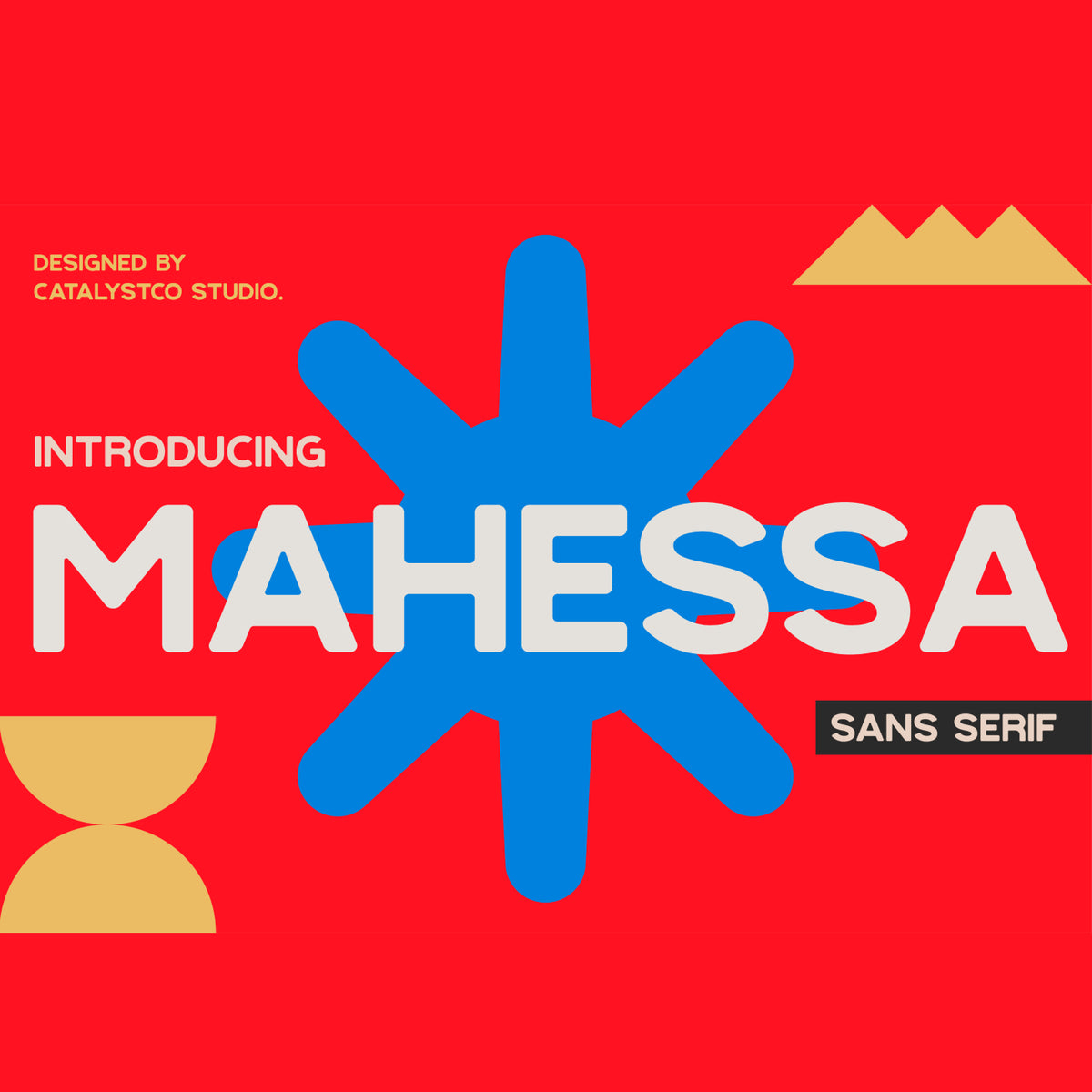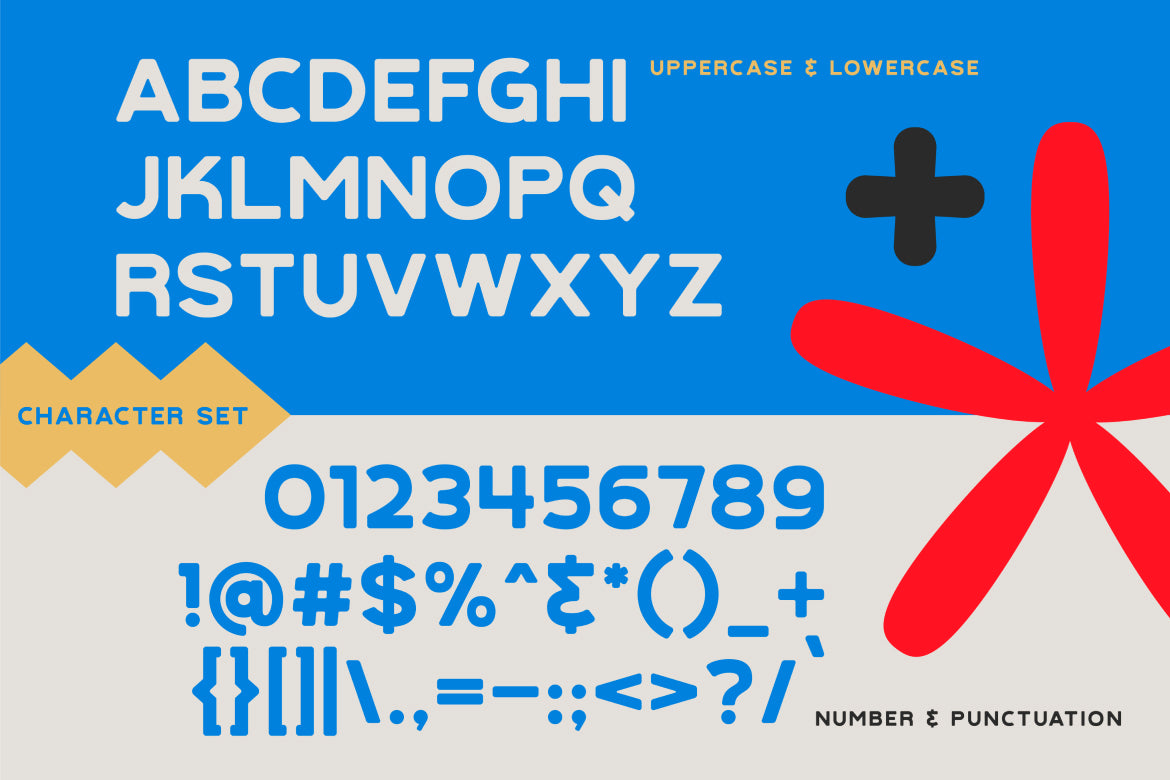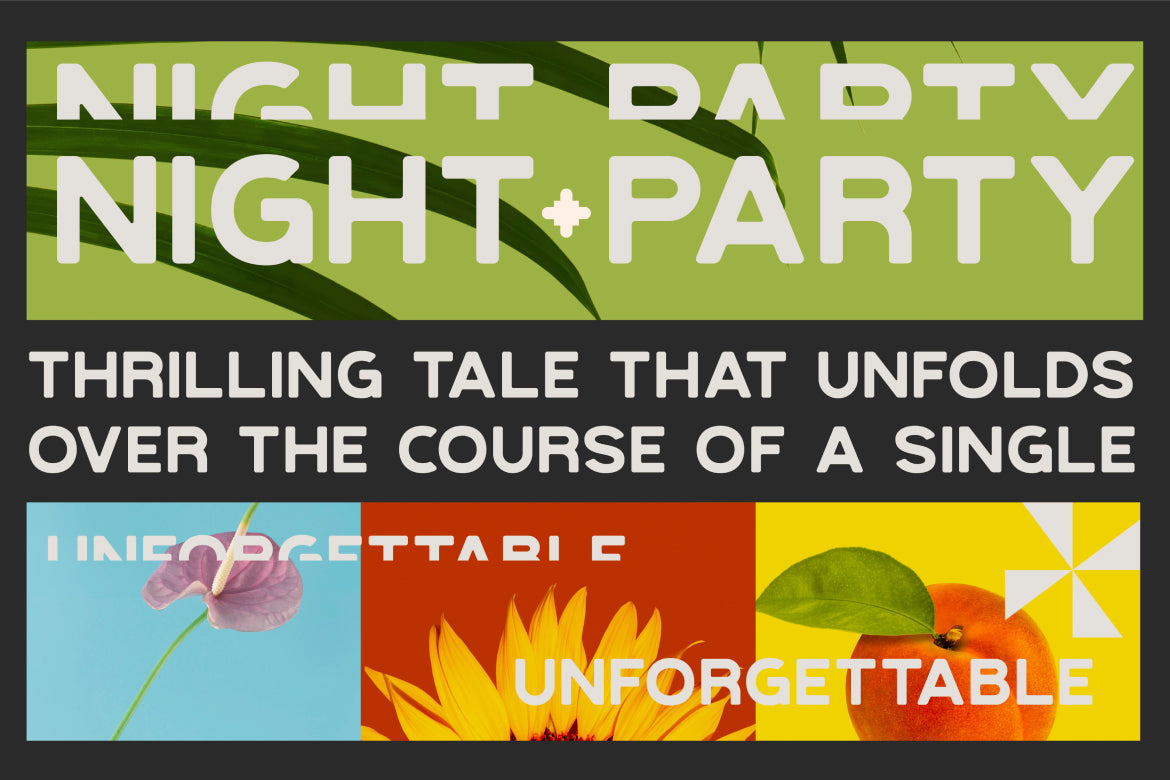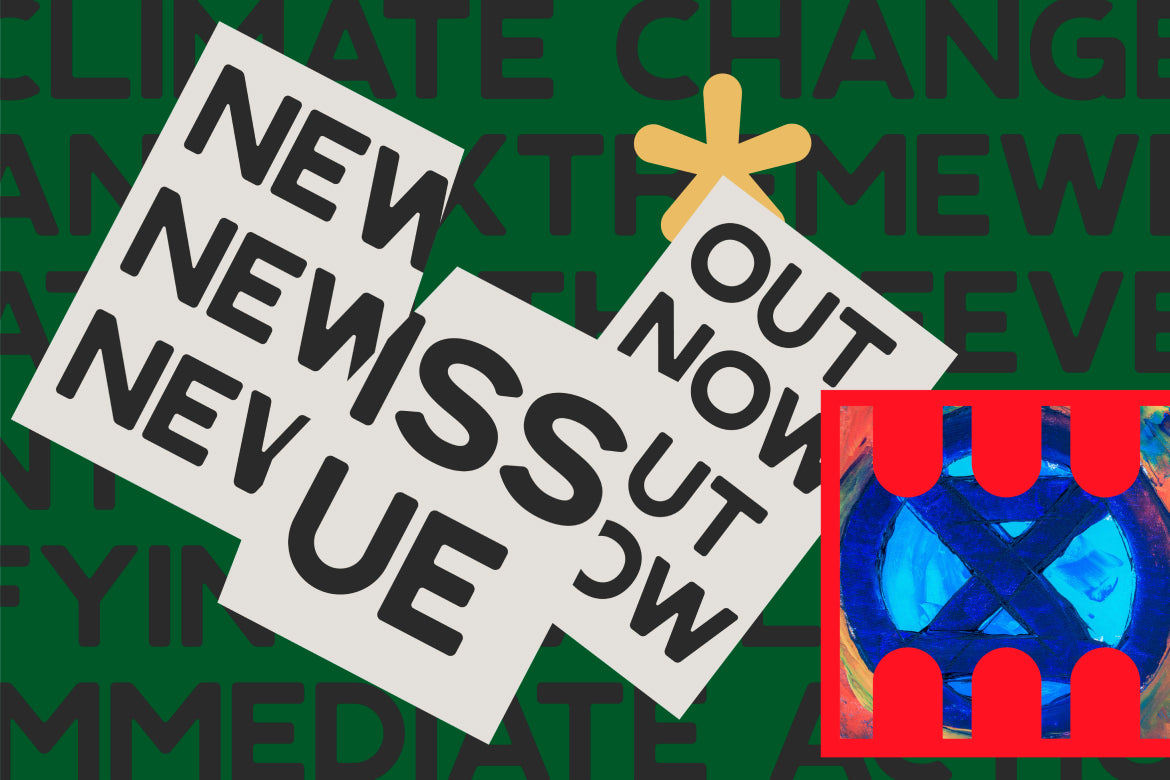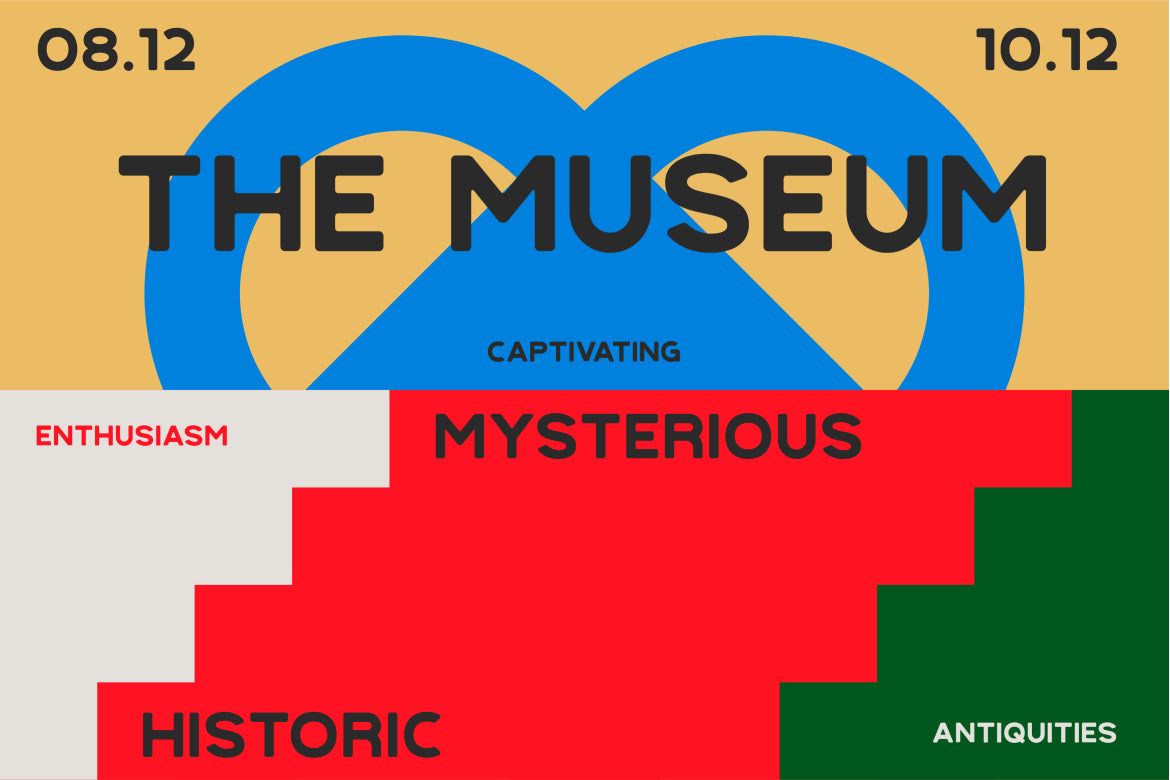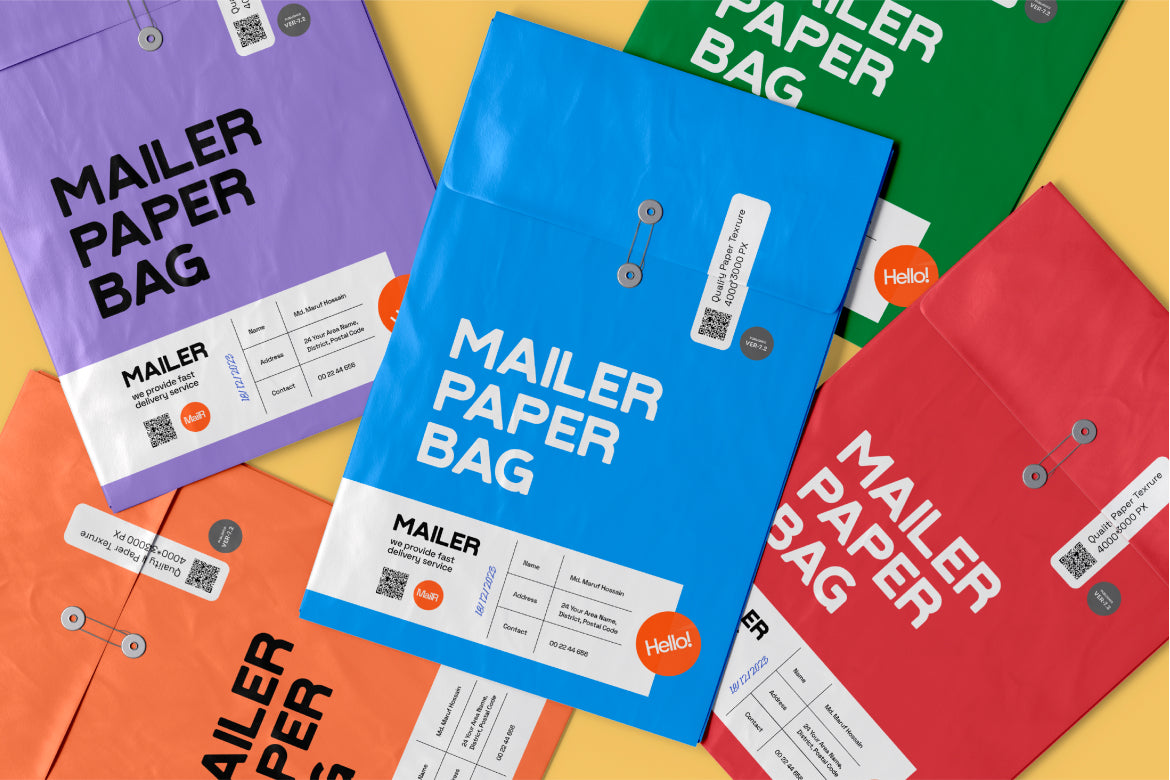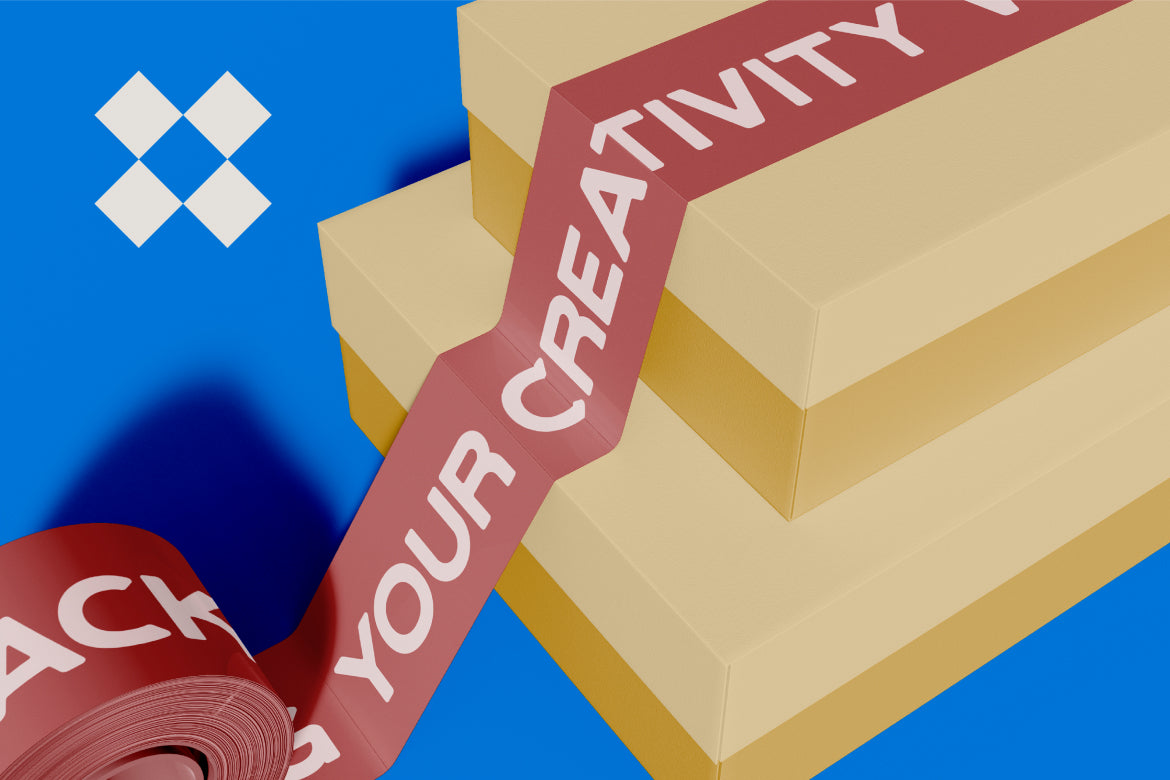
Mahessa Sans Serif Font
Mahessa Sans Serif Font is a bold display font designed to make a strong visual statement through its chunky letterforms, rounded corners, and distinctive geometric construction. Its thick strokes create a solid, confident appearance, while the smooth curves and carefully shaped counters soften the overall look, giving the font a playful yet powerful personality. The wide proportions and sturdy structure help each character remain clear and recognizable, even when used at large sizes or placed against vibrant backgrounds.
Relevance and Use Case is perfect for creative projects that need bold, approachable typography with a distinctive geometric character. Its thick strokes and rounded details make it effective for gaming identities, entertainment graphics, youth-focused branding, streetwear collections, promotional campaigns, and playful product packaging. Designers can use it for prominent headlines, logo concepts, poster titles, merchandise graphics, stickers, social media content, and digital advertisements where strong lettering needs to capture attention quickly.
Mahessa Sans Serif Font is a bold display typeface featuring chunky letterforms, rounded corners, and geometric construction with wide proportions. It includes uppercase and lowercase characters, ligatures, alternates, numerals, and punctuation, with multilingual support in TTF, OTF, and WOFF formats.